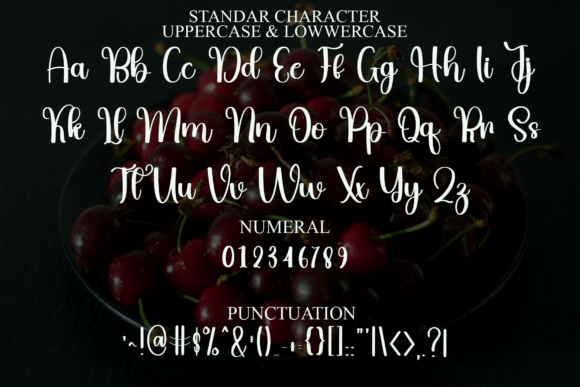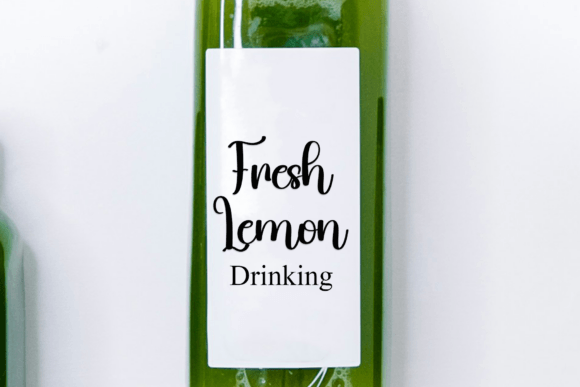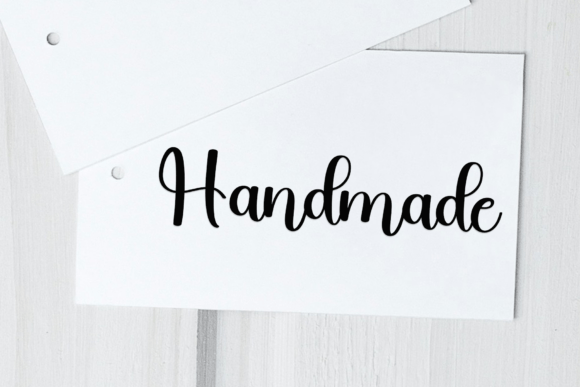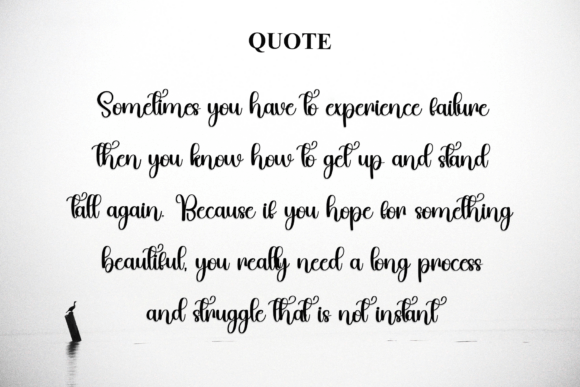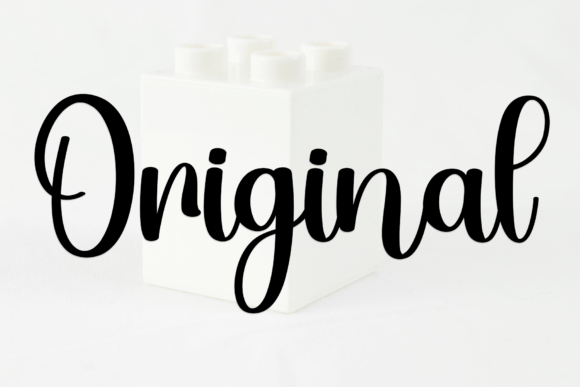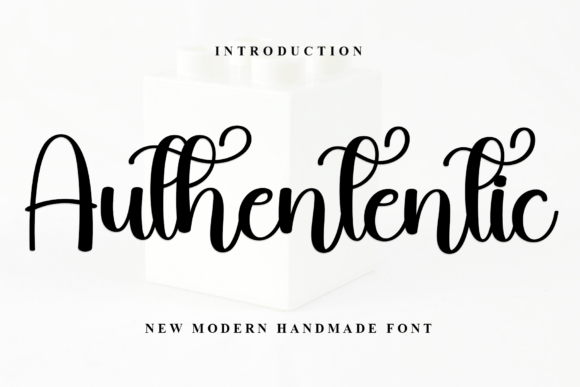
Introducing Authententic: The Charming Handmade Font for Creative Projects
In the world of typography, a font can make all the difference in the aesthetic and tone of a design. For those seeking a unique and personal touch, Authententic is a charming handmade font that looks playful and friendly. Its casual, uneven letters give it a distinctive character that sets it apart from more traditional fonts. In this article, we’ll explore the features and benefits of Authententic, and how it can add a warm and creative feel to your work.
The Characteristics of Authententic
Authententic is a handmade font that exudes a sense of playfulness and friendliness. Its casual, uneven letters are reminiscent of handwritten text, giving it a personal and approachable feel. The font features a mix of rounded and pointed edges, creating a sense of whimsy and charm. The letters are also slightly irregular, with varying sizes and spacings, which adds to the font’s handmade feel.
Authententic is perfect for a variety of creative projects, including school assignments, invitations, and other fun designs. Its playful and friendly nature makes it ideal for projects that require a personal touch, such as:
- School projects: Add a creative and playful touch to your school assignments, making them stand out from the crowd.
- Invitations: Create unique and personalized invitations for parties, events, or special occasions.
- DIY crafts: Use Authententic to add a personal touch to your DIY crafts, such as handmade cards, gift tags, or scrapbooking.
Benefits of Using Authententic
Using Authententic in your designs offers several benefits, including:
- Unique and distinctive look: Authententic’s handmade feel sets it apart from more traditional fonts, giving your designs a unique and distinctive look.
- Personal touch: The font’s casual, uneven letters add a personal touch to your designs, making them feel more approachable and friendly.
- Versatility: Authententic can be used for a variety of creative projects, from school assignments to DIY crafts.
- Easy to read: Despite its handmade feel, Authententic is easy to read, making it perfect for designs that require a clear and legible font.
Tips for Using Authententic
To get the most out of Authententic, here are some tips for using the font:
- Use it for headings and titles: Authententic is perfect for headings and titles, where its playful and friendly nature can shine.
- Mix it with other fonts: Combine Authententic with other fonts to create a unique and interesting contrast.
- Experiment with colors and textures: Add an extra layer of creativity to your designs by experimenting with different colors and textures.
Authententic is a charming handmade font that adds a warm and creative feel to any design. Its playful and friendly nature makes it perfect for a variety of creative projects, from school assignments to DIY crafts. With its unique and distinctive look, personal touch, and versatility, Authententic is a font that designers and crafters will love. So why not give it a try and see how it can add a personal touch to your designs?
In conclusion, Authententic is a font that embodies the spirit of creativity and playfulness. Its handmade feel and casual, uneven letters make it a standout in the world of typography. Whether you’re a designer, crafter, or simply someone looking for a unique font for your next project, Authententic is definitely worth checking out.